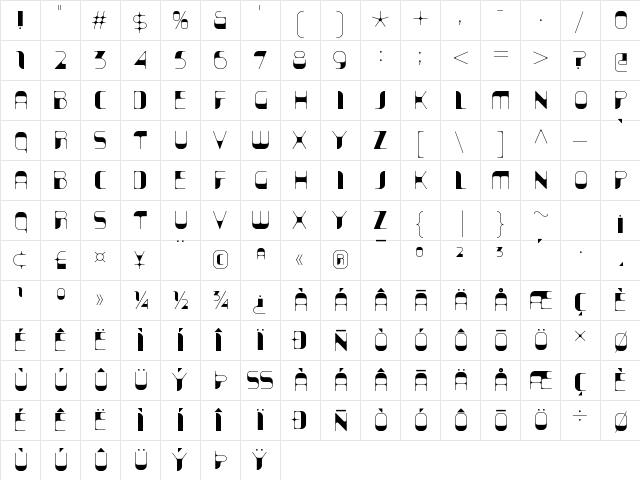
Krait Solid Font Preview
Krait Solid
Krait Solid Font Details
Design Context for Krait Typeface
Krait is a composed and adaptable typeface that performs quietly and consistently across a wide range of design contexts.